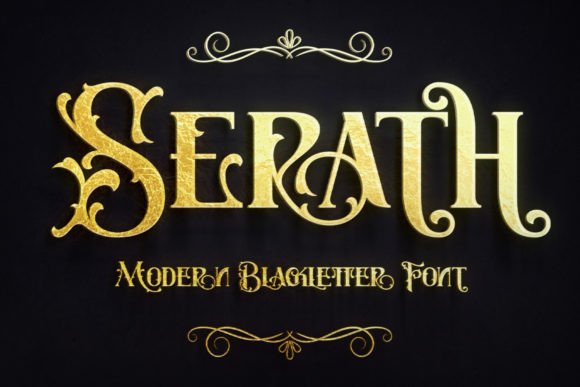
Introducing Serath Font, the ultimate choice for those in search of the best font for tattoo words! Created by the talented Thomas Aradea, this blackletter font is a true masterpiece that will instantly captivate your senses.
Step into a world where bold meets sophistication with Serath Font. Its powerful and elegant design makes it the perfect choice for product packaging, branding, or any project that requires daring typography. With Serath, your message will not only be heard but also seen with utmost clarity and impact.
What sets Serath apart from other fonts is its remarkable versatility. Thanks to its PUA encoding, you gain easy access to a vast collection of glyphs and swashes, allowing you to customize and personalize your designs effortlessly. Let your creativity run wild as you explore the endless possibilities Serath has to offer.
But it's not just about aesthetics. Serath Font brings a sense of confidence and strength to your projects. The moment you incorporate this font into your designs, you'll feel a surge of empowerment and charisma. Every stroke and curve of Serath Font tells a story, adding depth and character to your work.
Don't settle for ordinary fonts when you can have something extraordinary. Serath Font is the epitome of uniqueness and individuality. It will make your words come alive, leaving a lasting impression on anyone who sees them. Stand out from the crowd and leave a mark that cannot be ignored.
In conclusion, Serath Font is the perfect choice for those seeking a font that embodies power, elegance, and creativity. From tattoo words to branding projects, Serath Font will elevate your designs to new heights. Download Serath Font now and embark on a journey of limitless possibilities.